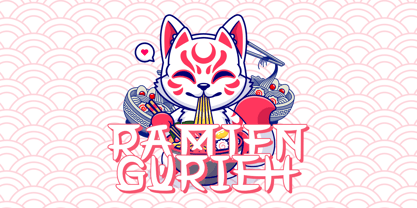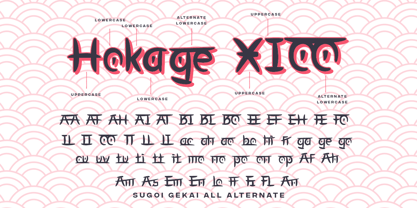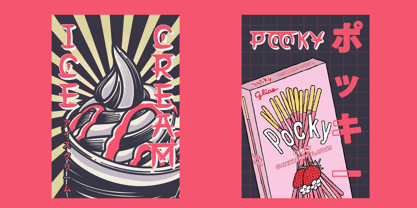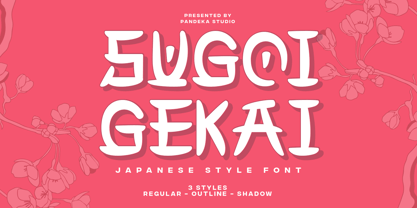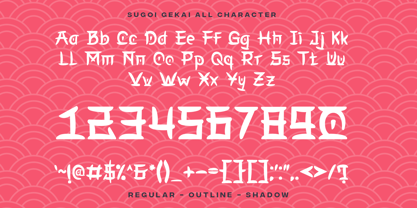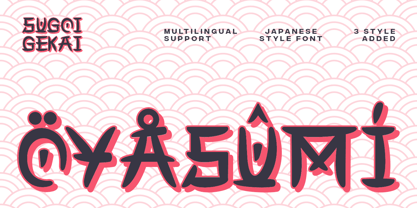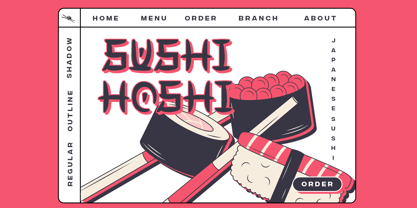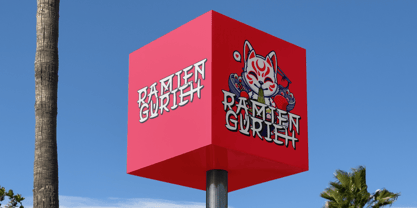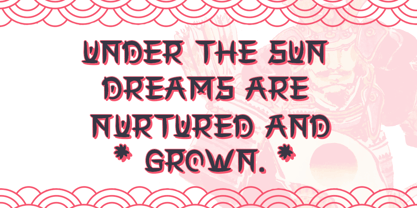
Sugoi Gekai
The Sugoi Gekai Font Family was designed by Sagara Nararya and published by Pandeka Studio. Sugoi Gekai contains 3 styles and family package options. More about this family
Sugoi Gekai – Japanese Chinese Font
Bring the essence of Japan and China into your designs with Sugoi Gekai, a beautifully crafted typeface that blends the charm of traditional Japanese and Chinese calligraphy with a modern, stylish touch. With its 3 unique styles – Regular, Shadow, and Outline, this font is perfect for projects that seek a cultural yet elegant and versatile aesthetic.
Ideal for a wide range of creative projects, Sugoi Gekai works wonderfully for branding, posters, film titles, music events, vintage designs, typography, and so much more. Its clean yet striking design will bring sophistication and uniqueness to any project.
• 3 Styles: Regular, Shadow, and Outline
• Full Character Set: Uppercase, lowercase, numbers, symbols, and punctuation